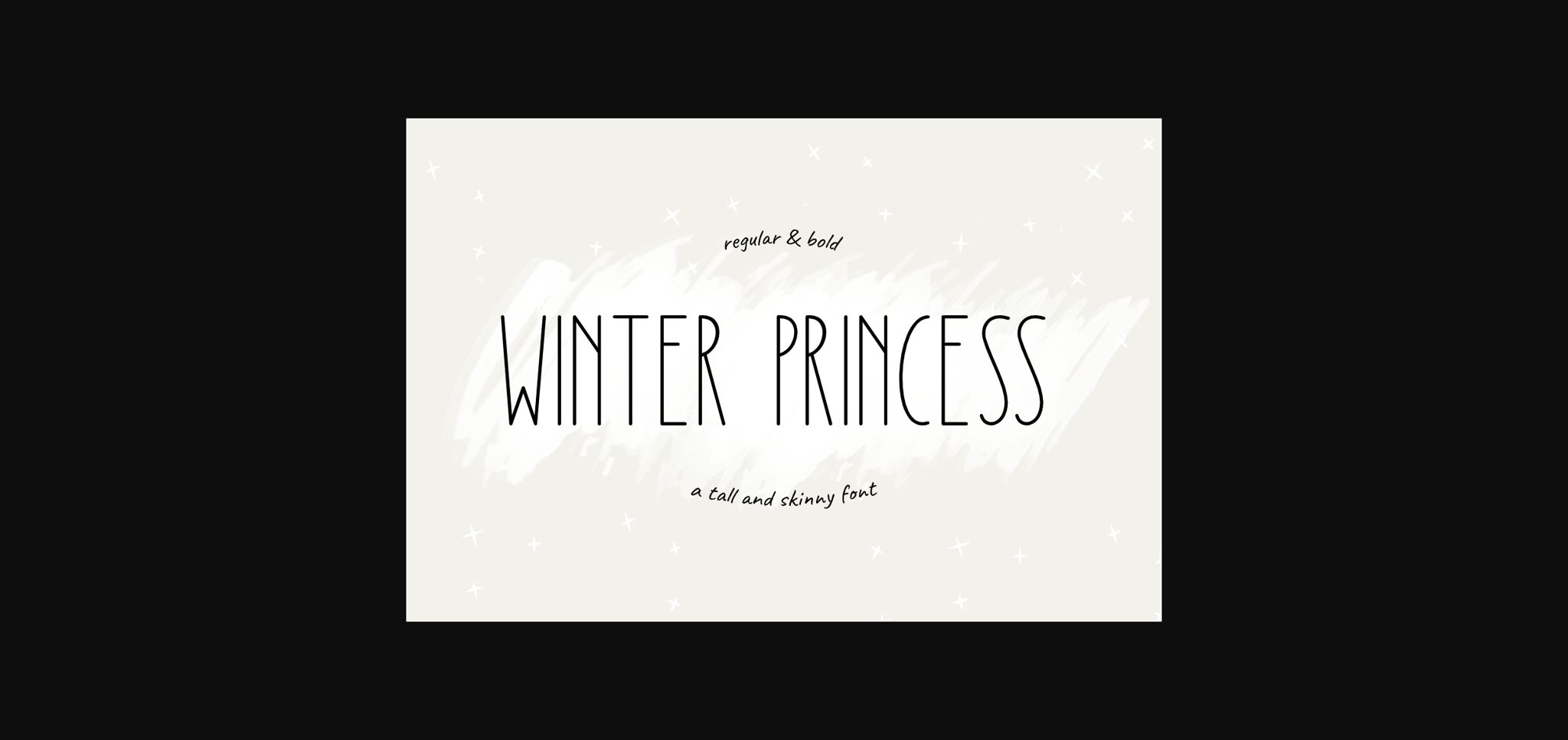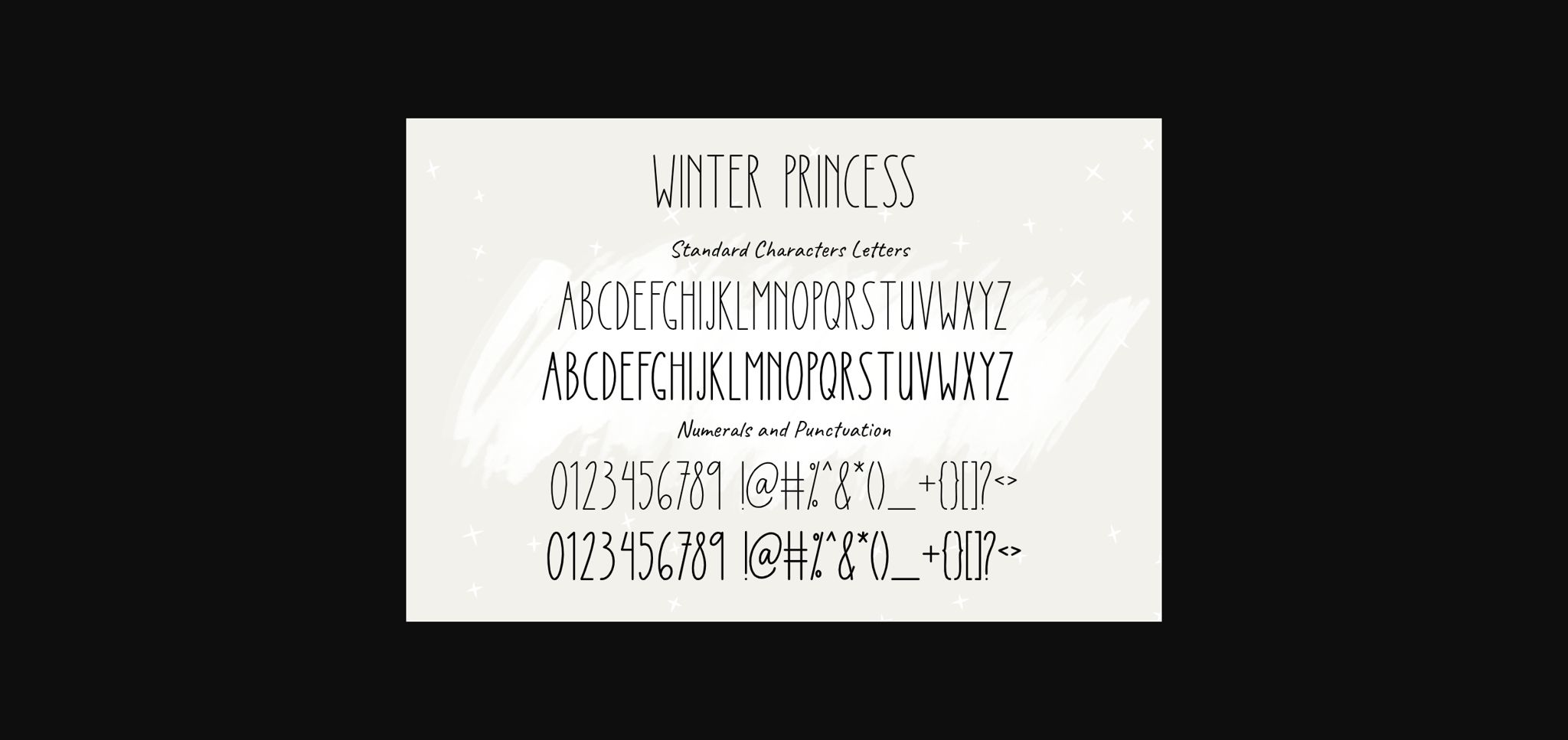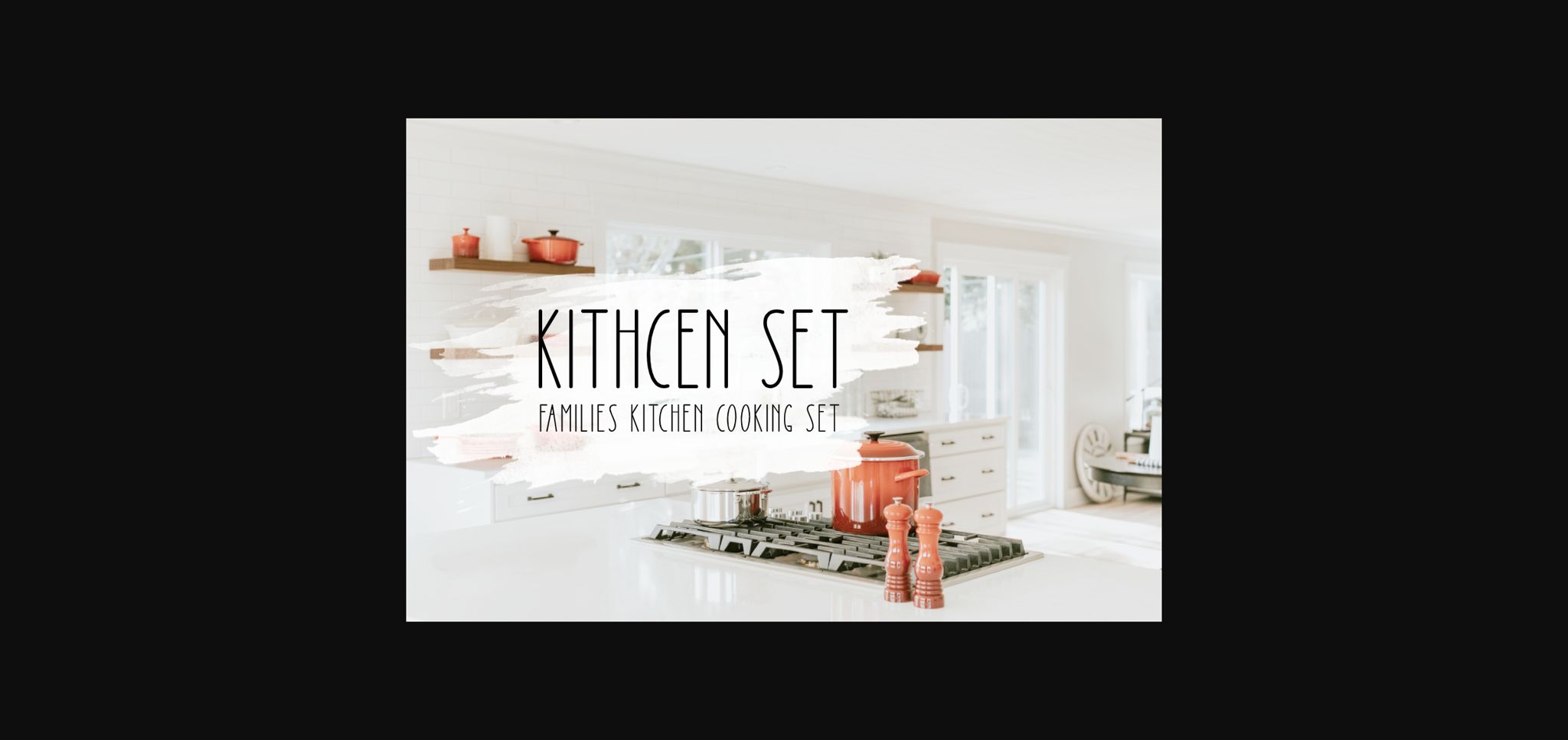
About Winter Princess Font
Winter Princess is a sans serif font that has both tall and skinny letters which makes it easy to read! It is available in two styles, regular and bold. This font looks awesome for quotes, shirt design, SVG design, children’s design, SVG design, branding, Cricut projects, mugs, and so on.